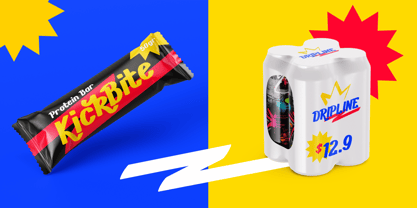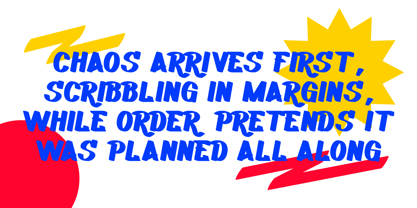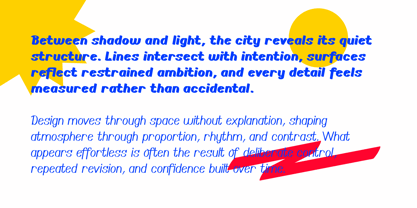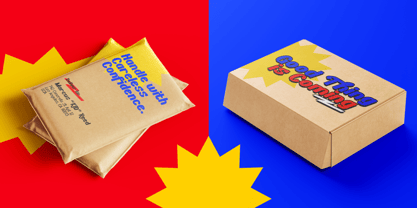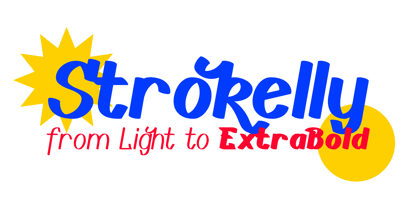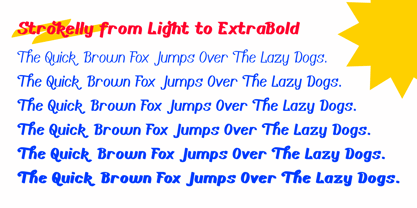
Strokelly
por Ghozai Studio
La familia tipográfica Strokelly fue diseñada por Manzur Ghozaali y publicada por Ghozai Studio. Strokelly contiene 6 estilos y opciones de paquete familiar. Más información sobre esta familia
Strokelly is a dynamic, graffiti-inspired font with an edgy, italicized, modern design similar to bold round marker pen strokes. Strokelly is available in 6 weight from light to Extra Bold. Its wide weight and energetic style is perfect for large display text that demands attention. Featuring a variety of ligatures and alternate stylistic sets, this font creates a natural, handwritten look that adds personality and flair to your designs. Ideal for projects in the sports, street, hip hop, and urban themes, Strokelly is the perfect choice when you need an authentic handwritten aesthetic. The versatility of this font makes it suitable for both digital and print media. Whether you're designing posters, logos, or social media graphics, Strokelly will give your project an unmistakable, eye-catching edge.
Strokelly